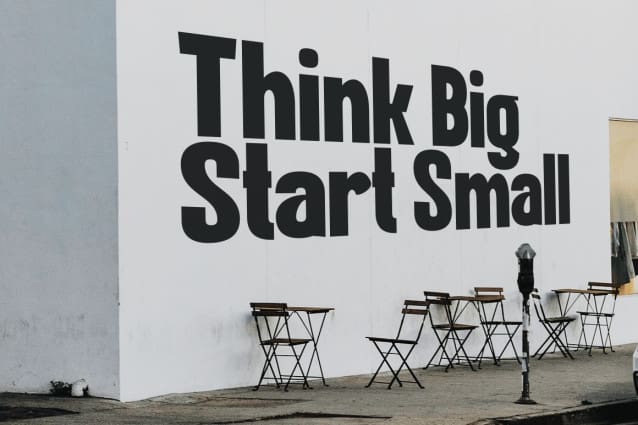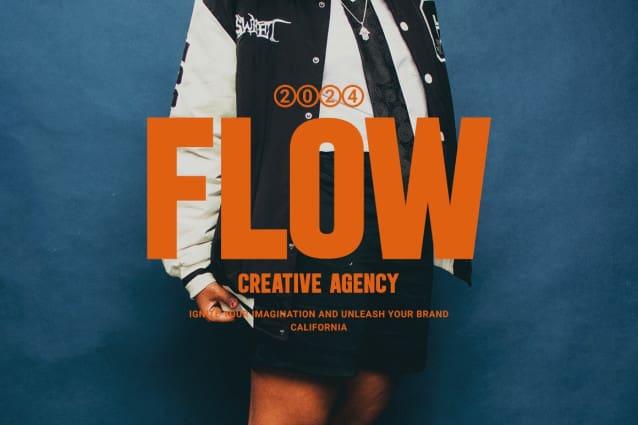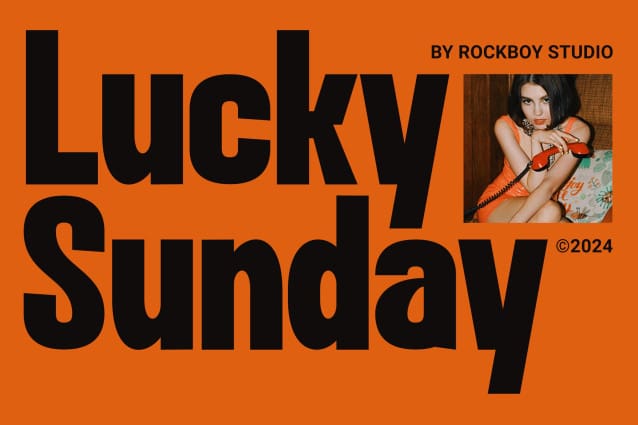
Lucky Sunday Font
Lucky Sunday Font is a modern sans serif typeface with a pronounced weight, designed to convey a sense of friendliness and warmth. The letters have a clean, rounded structure with balanced proportions, making them versatile for headlines and body text. The strokes are regular and uniform, with minimal variation in stroke weight, and the spacing between characters is optimized for readability. Lucky Sunday’s bold style gives it a contemporary and confident feel, making it ideal for branding, advertising, and digital content. The font often exudes a playful and welcoming vibe, thanks to its soft edges and approachable letterforms.